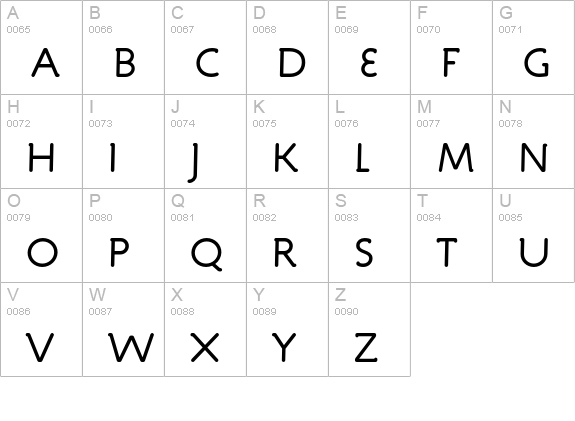
Engine-RegularLF is a modern and versatile font that strikes the perfect balance between professionalism and creativity. With its clean lines and subtle curves, this font is ideal for a wide range of design applications, from corporate branding to digital projects. The Engine-RegularLF font exudes a sense of reliability and sophistication, making it a great choice for conveying a sense of trustworthiness and credibility. What's even better is that Engine-RegularLF is available for free download at FontsMarket.com. This means you can easily access this high-quality font without any cost, making it a valuable addition to your font collection. With its timeless appeal and effortless elegance, Engine-RegularLF is sure to elevate any design project to new heights.